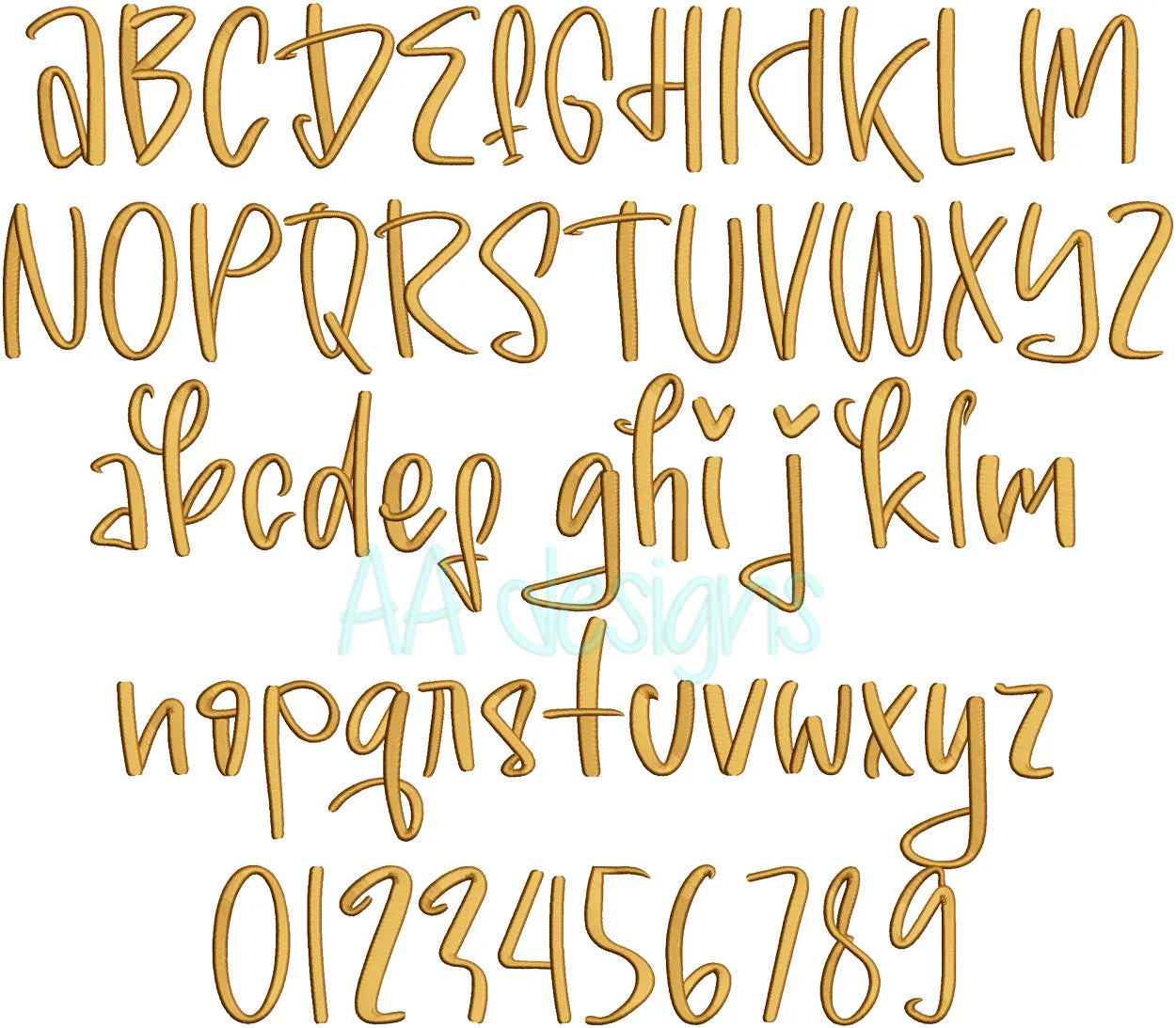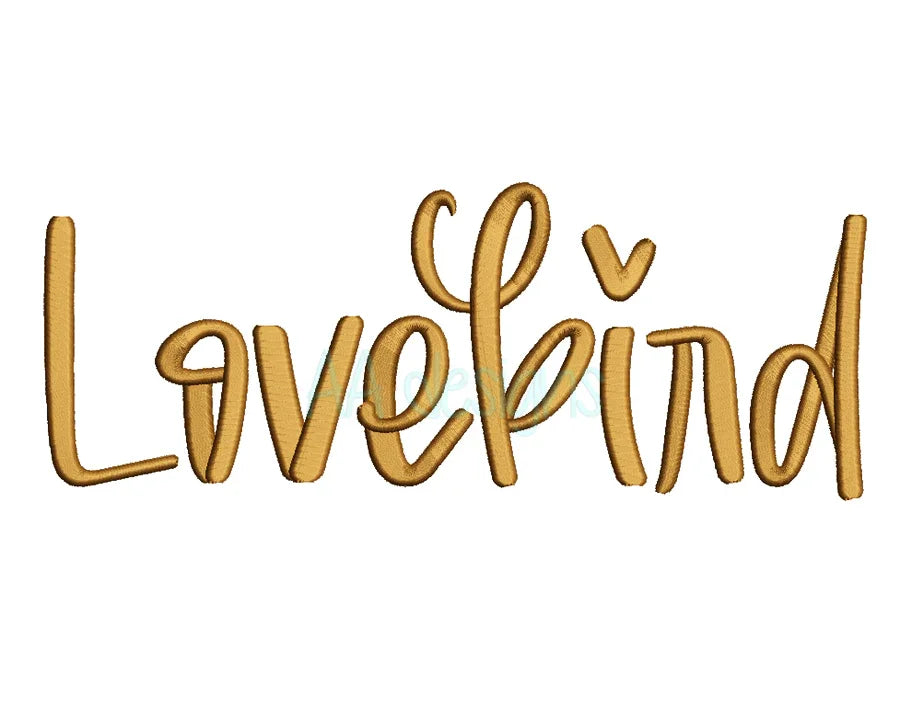
Love bird EMBROIDERY DIGITAL FONT. Embroidery font for instant download. BX file included
Love Bird Machine Embroidery Font — Instant Digital Download
Celebrate love and togetherness with the Love Bird Font. Perfect for wedding gifts, anniversary keepsakes, couple’s apparel, tote bags, and home décor.
- ✅ Full character set: uppercase, lowercase, numbers 0–9